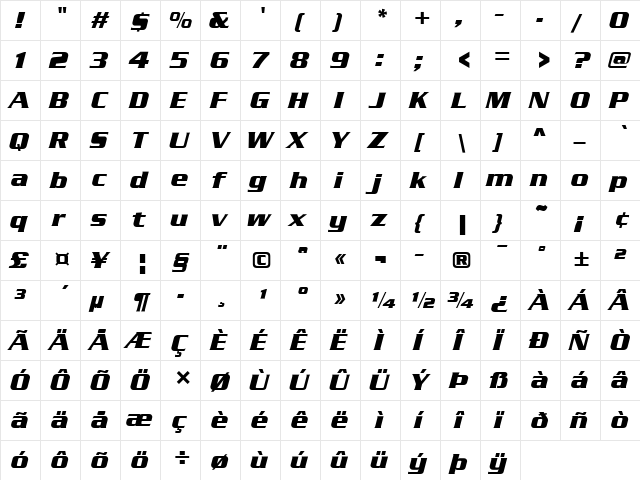
Serpentine D Bold Italic Font Preview
Design Context for Serpentine D Typeface
Serpentine D offers clean, dependable letterforms without strong stylistic allegiance, making it a practical choice for designers who need flexibility. Its italic angle brings a sense of urgency and motion to the letterforms. The heavy weight commands attention and anchors typographic hierarchies.
Pro Tip: Try Serpentine D for annotation and caption copy alongside an upright companion — the contrast in angle creates a dynamic but ordered typographic system.